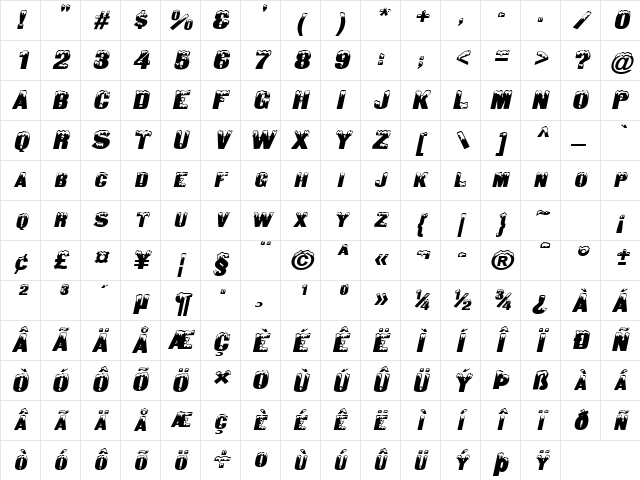
Snow Caps-Extended Italic Free Font
Snow Caps-Extended Italic
Design Context for Snow Caps-Extended
Snow Caps-Extended is a composed and adaptable typeface that performs quietly and consistently across a wide range of design contexts. The slanted form adds forward momentum and visual energy.
Pro Tip: Use Snow Caps-Extended for emphasis, pull quotes, and subheadings where its slanted energy can add rhythm to the layout.